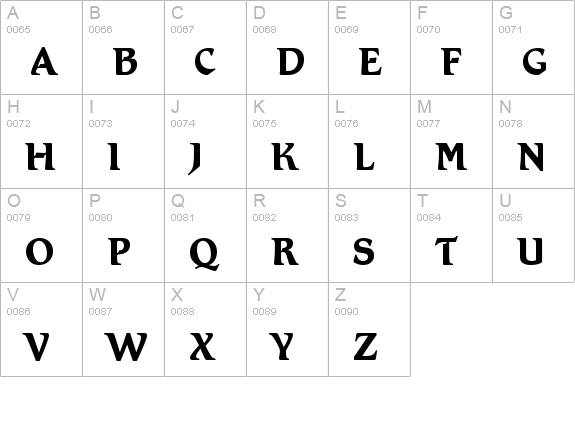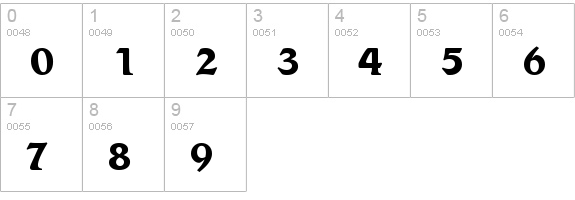
Robinson-Bold is a strong, high-contrast variant in the Robinson typeface family \xE2\x80\x94 well suited to headlines, attention-grabbing titles, and strong calls-to-action.
Robinson-Bold font is a striking and versatile typeface that exudes confidence and modernity. Its bold and clean lines make it perfect for a wide range of design projects, from eye-catching headlines to impactful branding materials. The Robinson-Bold font is designed to make a statement and grab the viewer's attention with its strong presence on the page. What sets Robinson-Bold font apart is not only its boldness but also its readability and versatility. Whether used in print or digital media, this font retains its legibility even at smaller sizes, making it a practical choice for body text as well as headlines. And the best part? Robinson-Bold font is completely free to download at FontsMarket.com. So, designers and creatives can easily access this high-quality typeface without breaking the bank. Don't miss out on the opportunity to enhance your projects with the bold and impactful Robinson-Bold font today!